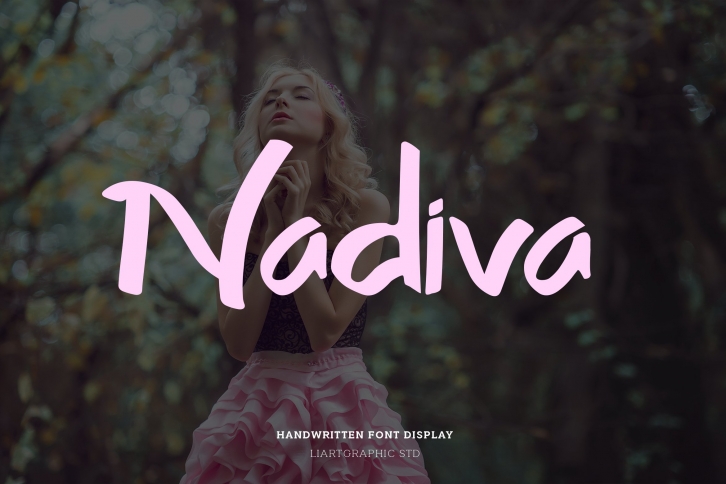
Nadiva is a beautiful font that was designed by liart3535. It's a great choice for designers and creatives who need such a font. It was released on March 7, 2021 and the file size is 4.58 MB. Nadiva may give a more youthful, expressive and casual look to your project. It is a very beautiful, refined, elegant, and high-quality font.